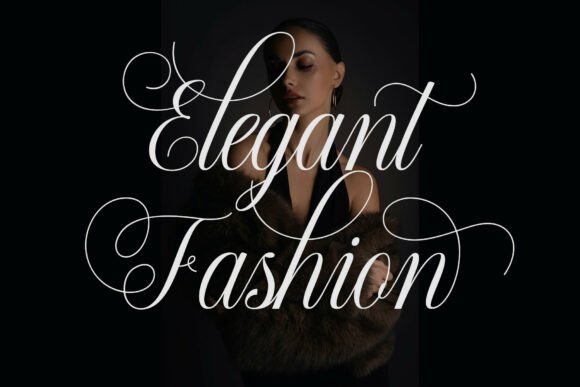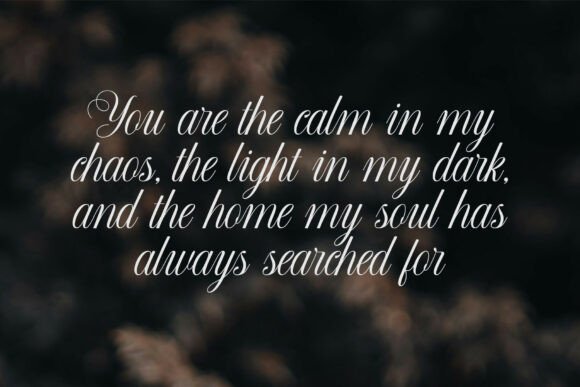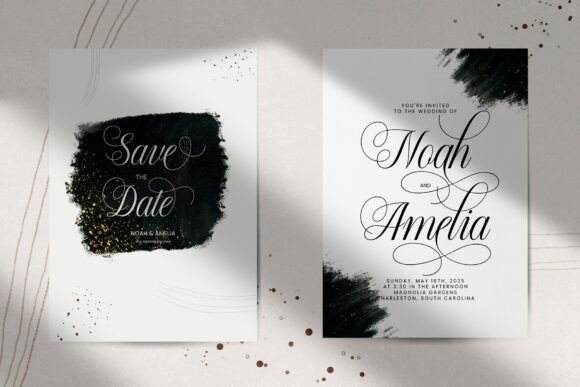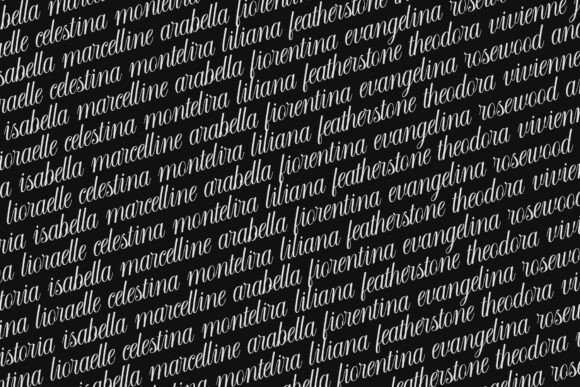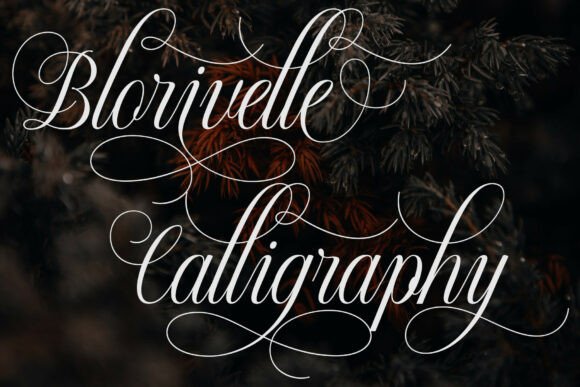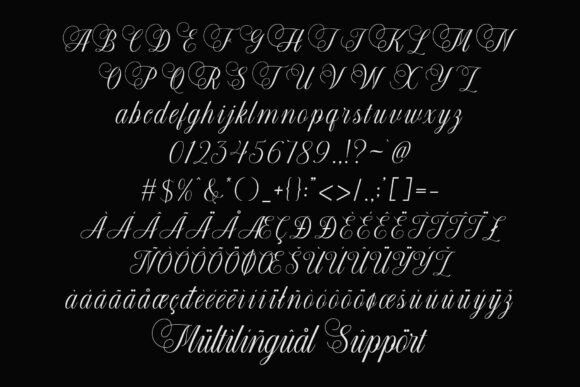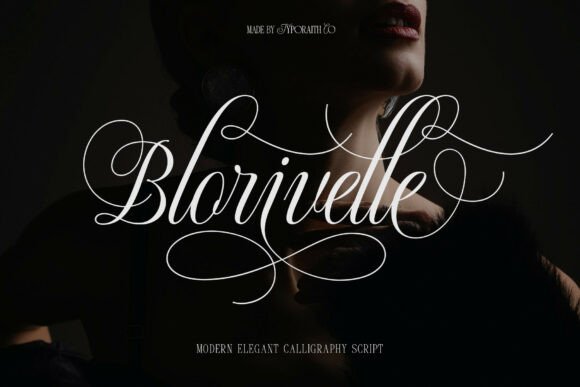
Introducing Blorivelle: The Epitome of Elegance in Modern Calligraphy Script Fonts
In the realm of typography, few fonts manage to convey the essence of luxury, elegance, and timeless beauty as effectively as Blorivelle. This modern calligraphy script font is a masterpiece of design, boasting graceful curves and sophisticated swashes that immediately command attention. Blorivelle is not just a font; it’s an experience, a statement of refinement and poise that can elevate any design project to new heights of sophistication.
The Design Philosophy Behind Blorivelle
Blorivelle was crafted with a clear vision: to create a font that embodies the perfect blend of modernity and classic elegance. Its design is characterized by flowing lines, delicate swashes, and a subtle nuance that gives it a distinctly feminine touch. This makes Blorivelle an ideal choice for designers and crafters looking to infuse their projects with a sense of luxury and grace.
Versatility at Its Finest: Use Cases for Blorivelle
One of the standout features of Blorivelle is its incredible versatility. This font is not limited to a single use case; rather, it can be seamlessly integrated into a wide array of design projects. Here are some of the most popular applications of Blorivelle:
- Wedding Invitations: Add a touch of sophistication and romance to your wedding invitations with Blorivelle. Its elegant curves and swashes make it perfect for conveying the joy and beauty of the occasion.
- Branding: For brands that wish to project an image of luxury, elegance, and refinement, Blorivelle is the ideal choice. It can be used to create stunning logos, packaging, and marketing materials that stand out in a crowded marketplace.
- Fashion Editorials: Blorivelle’s refined and feminine aesthetic makes it a natural fit for fashion editorials, where visual impact and elegance are paramount.
- Logo Designs: Create memorable and impactful logos with Blorivelle. Its unique blend of modernity and classic elegance ensures that your logo will stand out and leave a lasting impression.
- Luxury Packaging: For brands that offer high-end products, Blorivelle can be used to create luxurious packaging that exudes quality and sophistication.
Why Choose Blorivelle?
With so many fonts available to designers and crafters, what sets Blorivelle apart? Here are a few reasons why Blorivelle should be your go-to font for luxury designs:
- Unique Design: Blorivelle boasts a unique design that combines modern calligraphy with classic elegance, making it perfect for designers looking for something distinctive.
- Elegance and Versatility: Its elegant appearance and versatile nature make it suitable for a wide range of projects, from wedding invitations to luxury branding.
- Feminine Touch: Blorivelle adds a refined and feminine touch to any design, making it ideal for projects that require a bit of softness and sophistication.
- High-End Aesthetic: With Blorivelle, you can easily create high-end designs that demand attention and leave a lasting impression.
| Font Name | Blorivelle Font |
| Author | Typoraith Co |
Blorivelle is more than just a font; it’s a design statement that can elevate your projects to new heights of elegance and sophistication. Whether you’re a designer working on a luxury brand, a crafter creating bespoke wedding invitations, or a DIY enthusiast looking for the perfect font for your fashion editorial, Blorivelle is the perfect choice. Its unique blend of modern calligraphy and timeless beauty ensures that your designs will always stand out. So why wait? Discover the elegance of Blorivelle today and transform your designs with its refined and feminine touch.